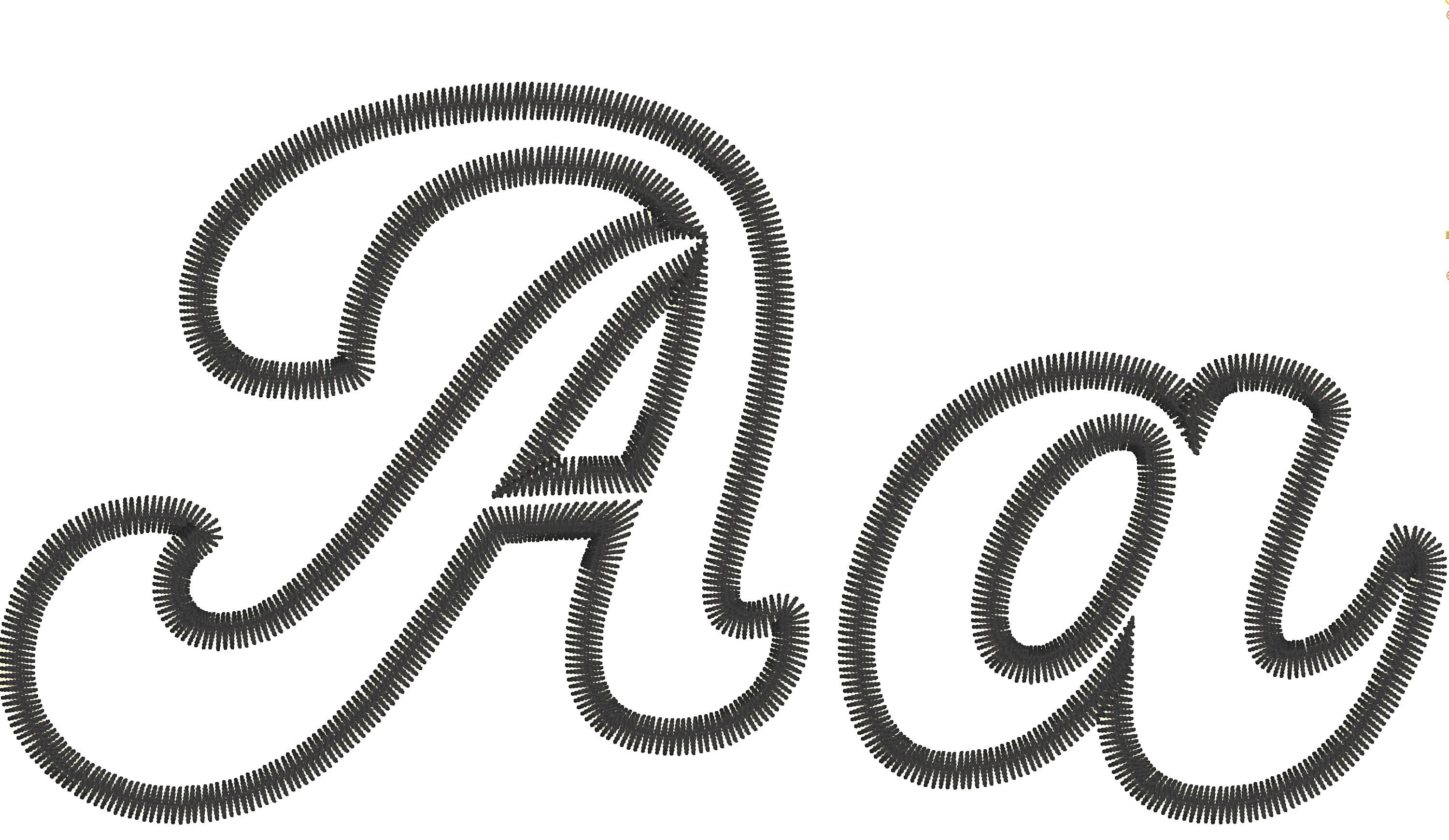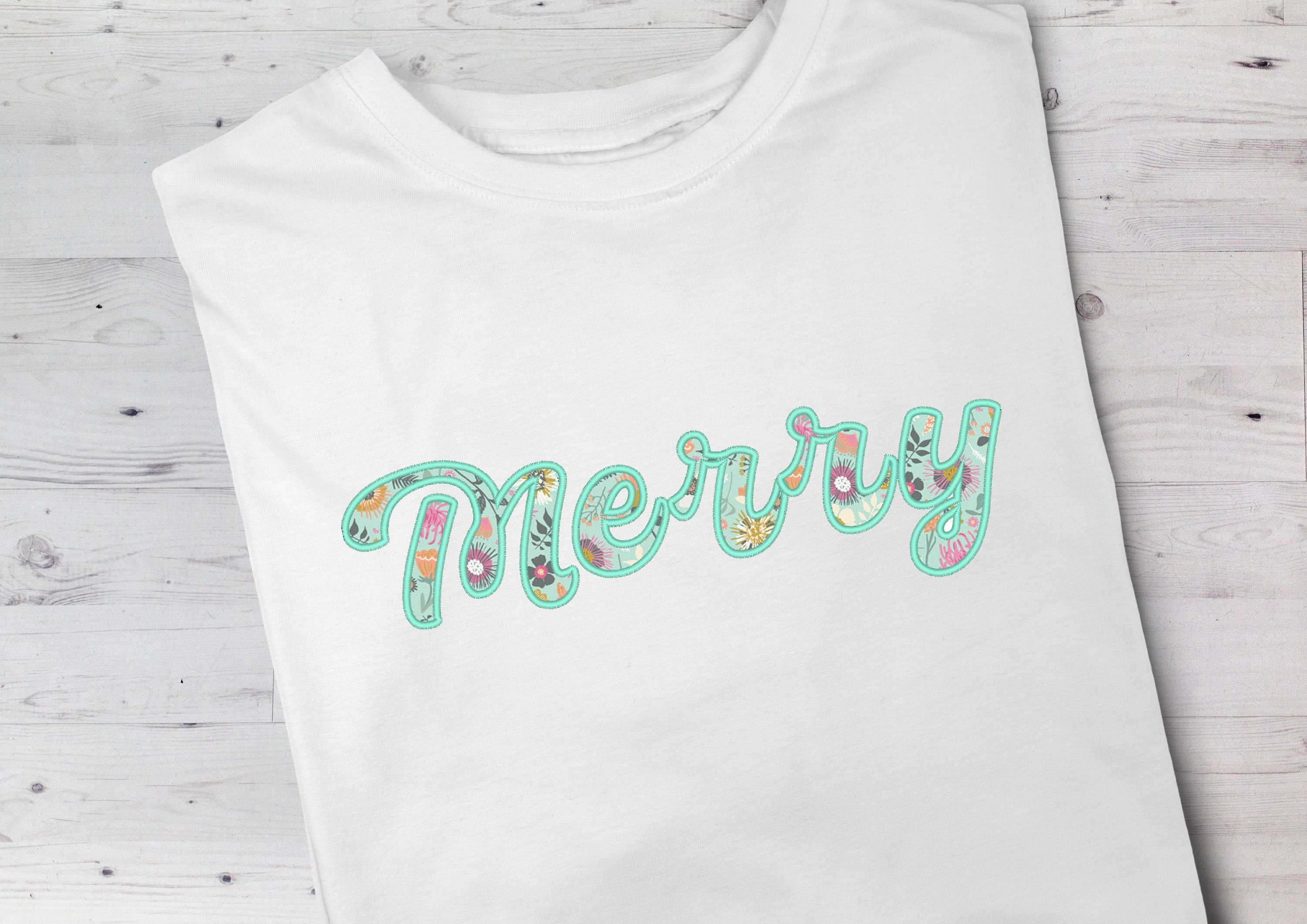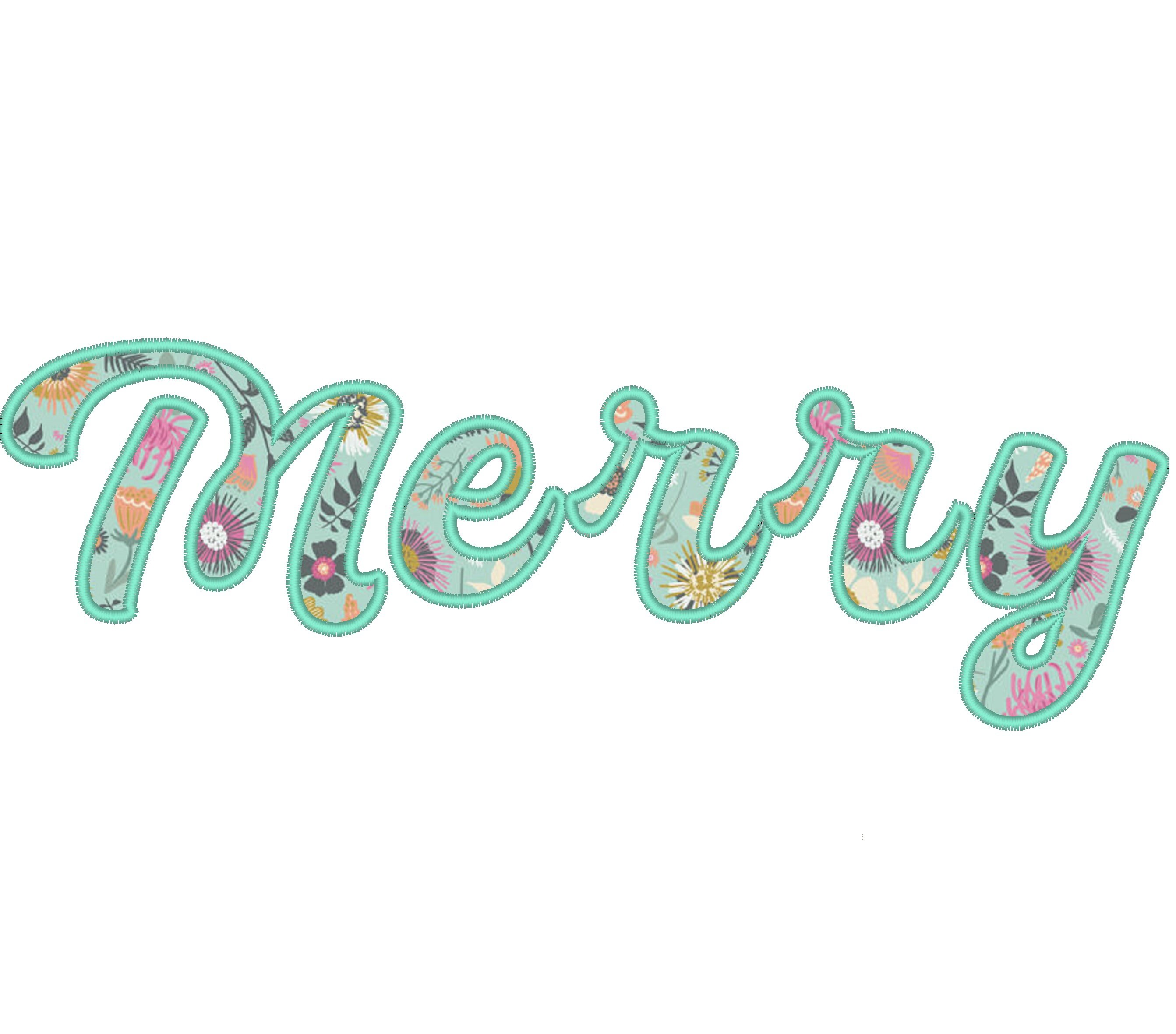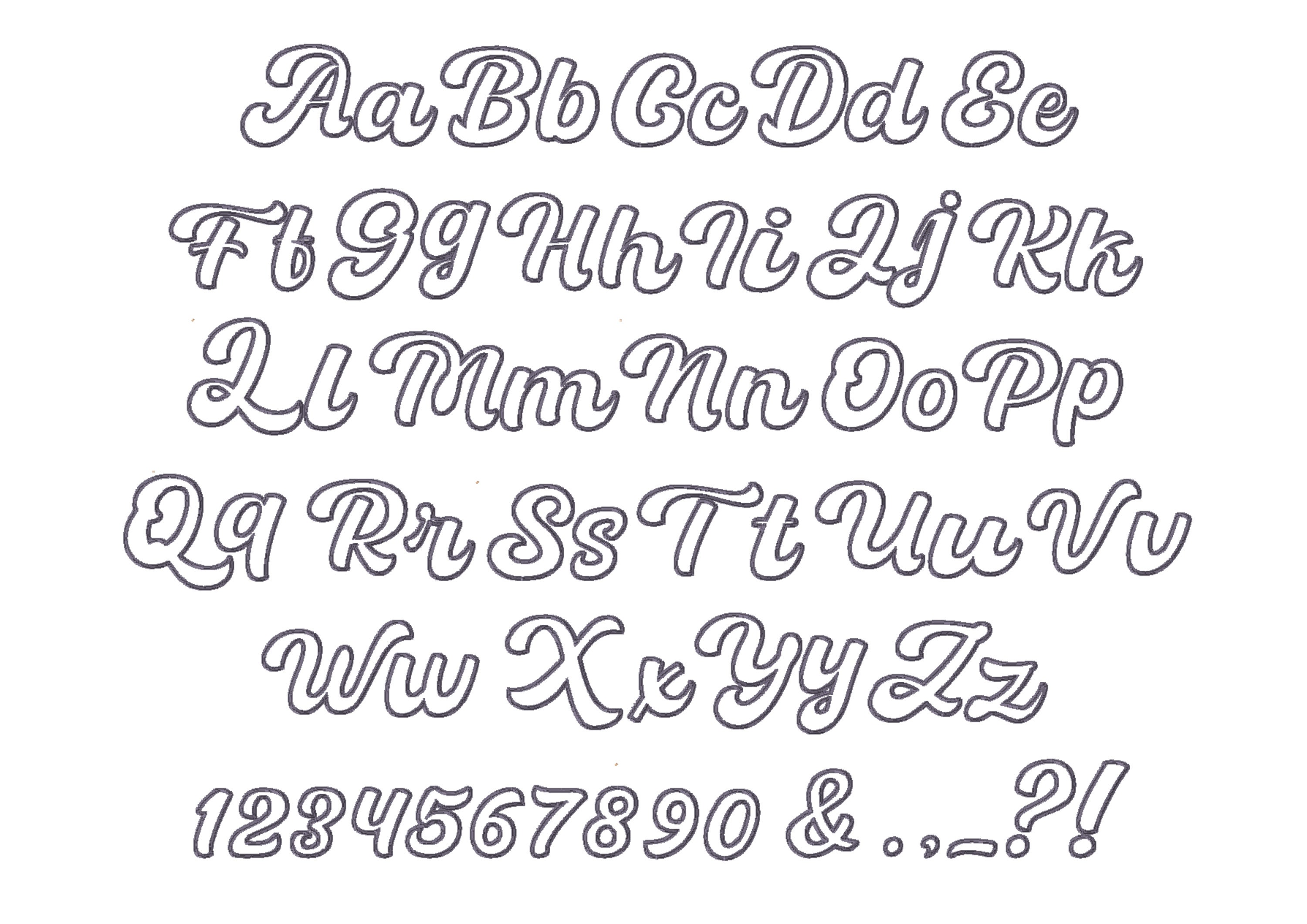
Light Zig-zag stitch outline Retro script handwritten cursive Font alphabet machine embroidery designs 1.9 thru 7 inches, monogram BX
Uppercase and lowercase letters, numbers, punctuation